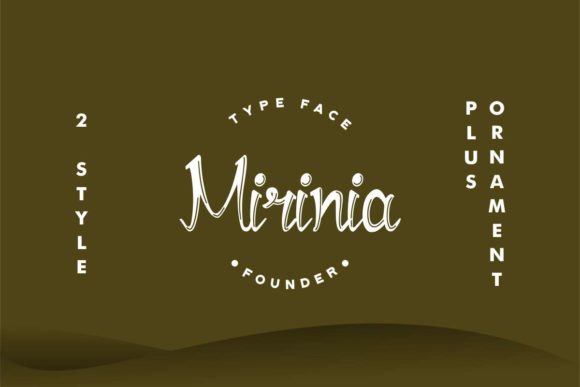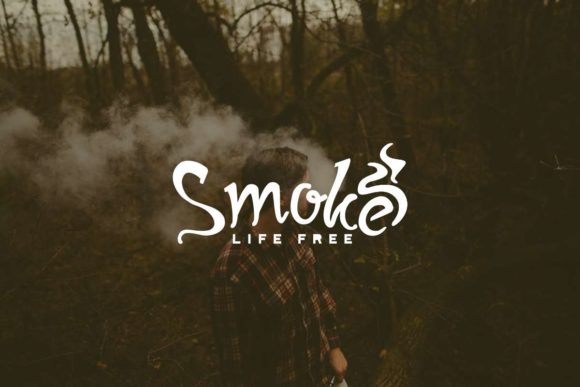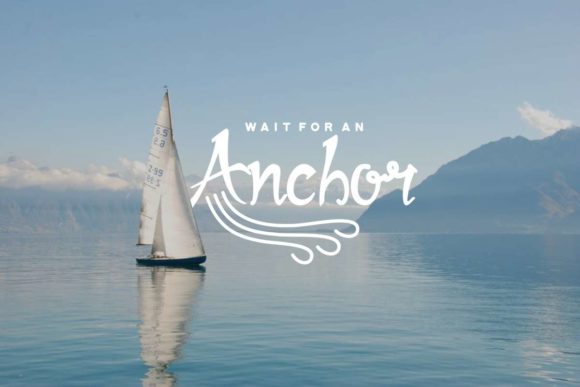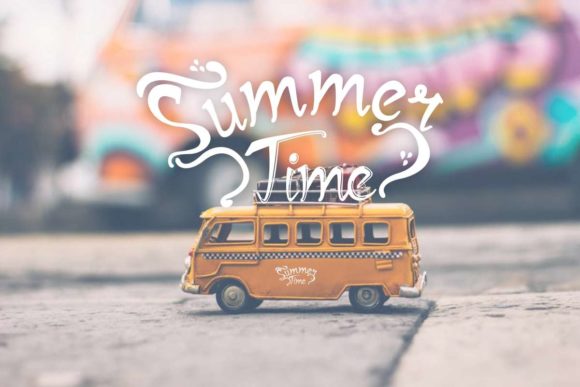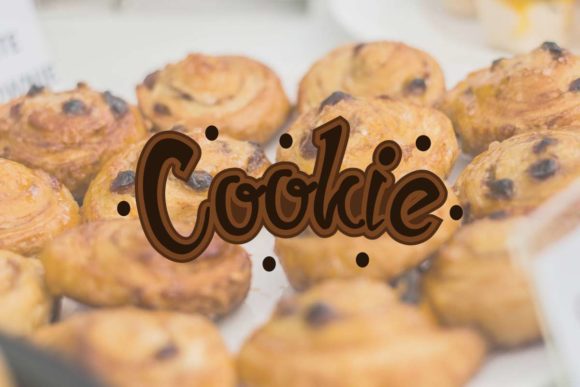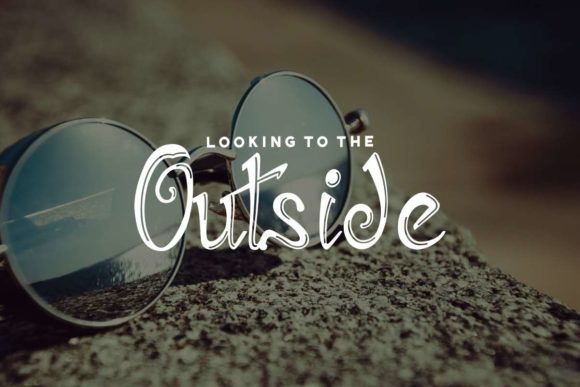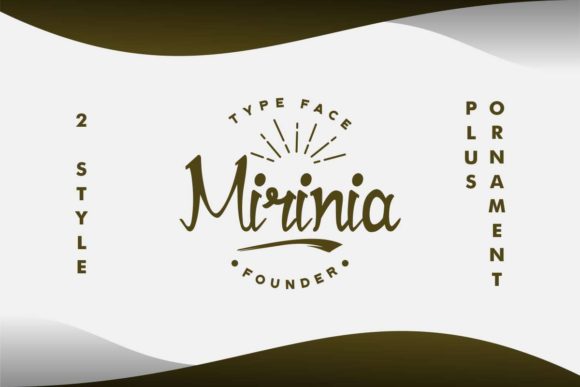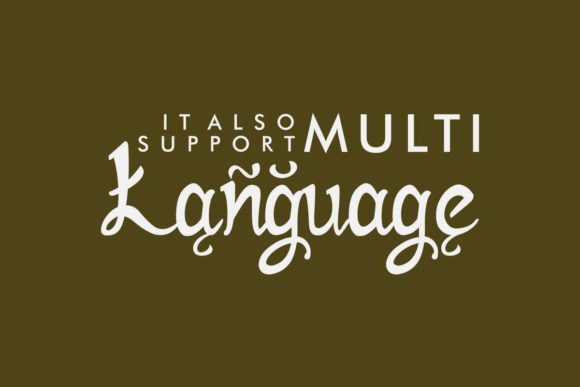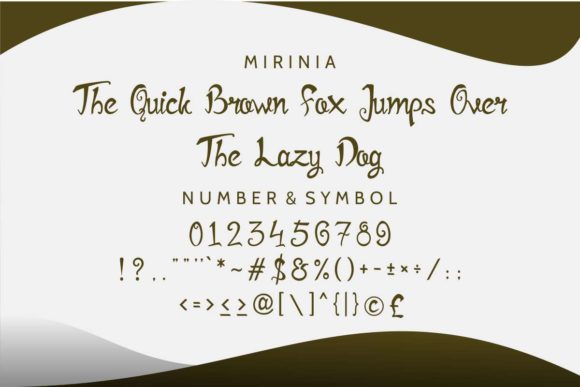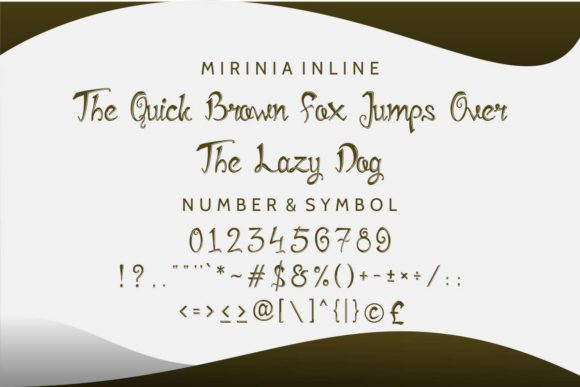
Mirinia Font
Mirinia is a gorgeous script font that’s authentically hand-lettered and carefully crafted. It will work well in any design that needs that special, personal touch!